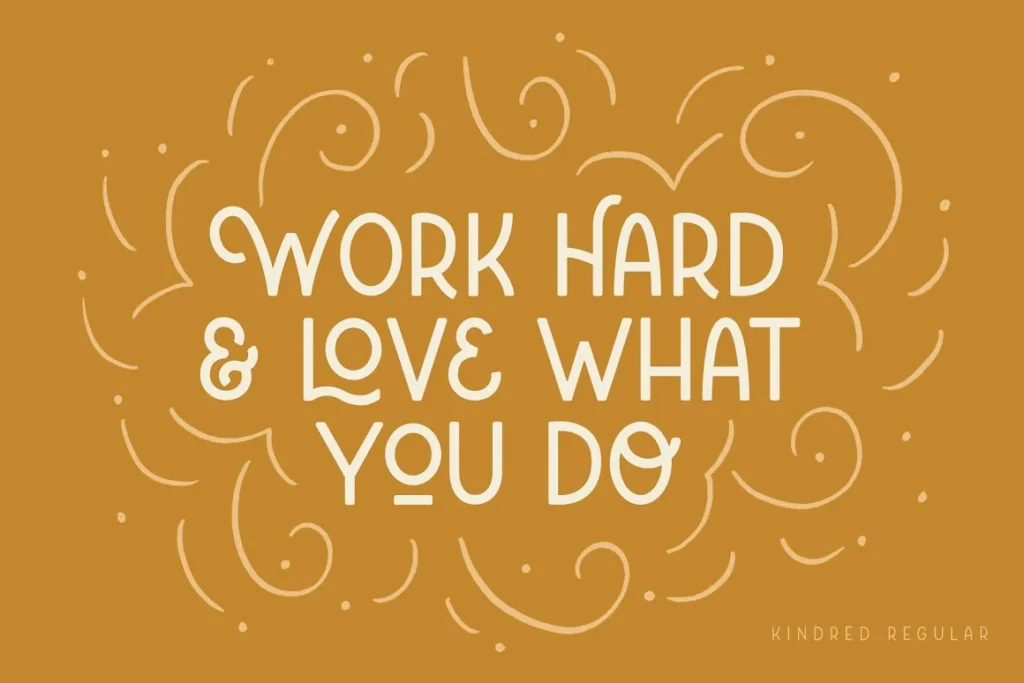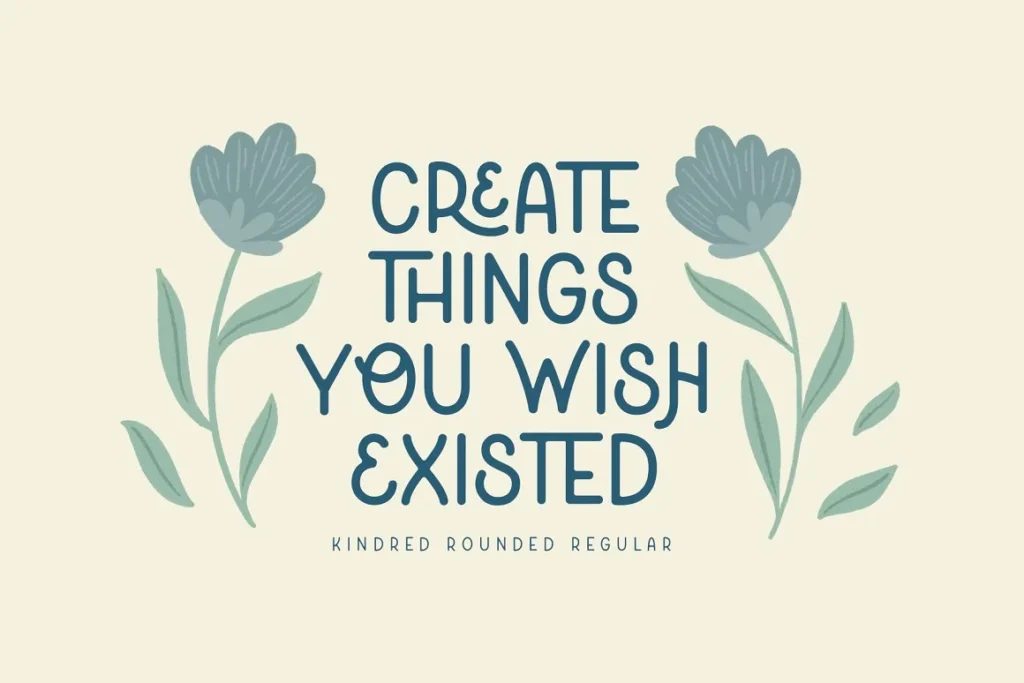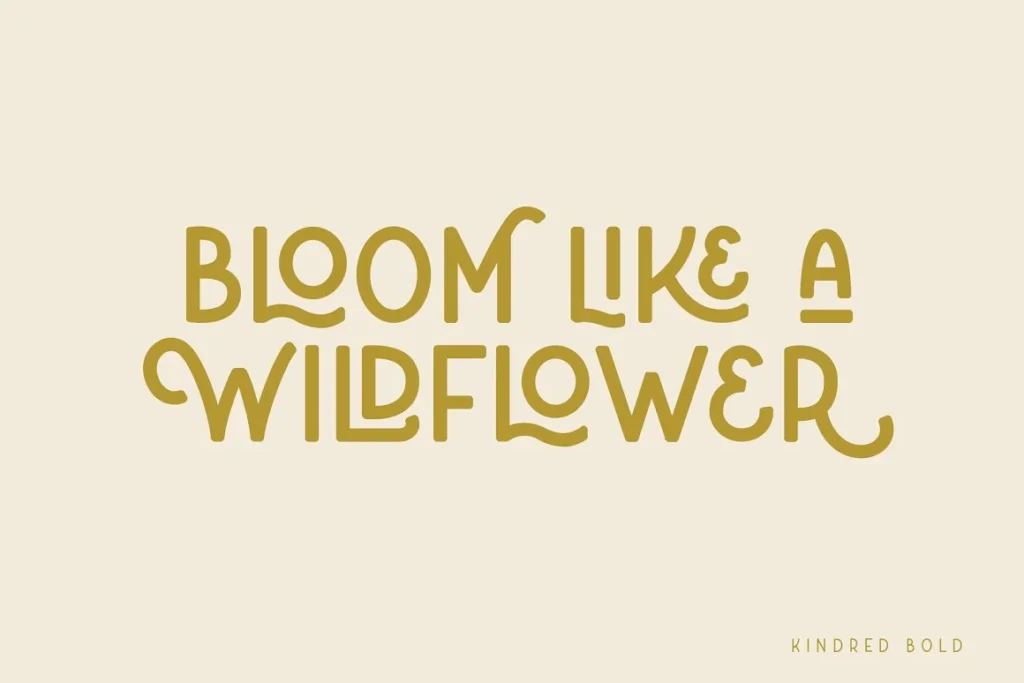
Kindred Handlettered Typeface It has a cordial and natural feel that turns out perfect for marking, online entertainment, and showcasing!
Fellow is motivated by hand lettering craftsmanship—integrating many letters that fit into one another and swashes that add a hand-drawn feel.
The corners are marginally adjusted to give it a natural and well-disposed feel. With so many other options and ligatures, each word can be altered to fit the requirements of your task.